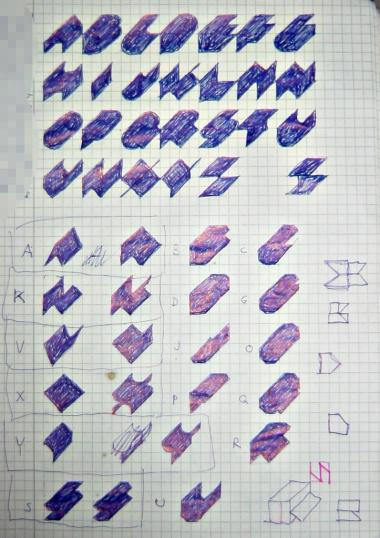
Frucktur
The subtle suggestion of a third dimension makes this FontStruction surprisingly readable. And that using a 4×4 grid only... Magic!
very nice! You kinda invented new symbols for letters inspried by... letters^^
Thank you! Yes, I first just played around with a 3D-effect on "normal" letters and finally it became these abstract silhouettes.
Here's an early sketch to make it clear:
Fantastic. The third dimension, the small grid, the preliminary sketches, the resulting silhouettes - all wonderful.
i dont believe it! it looks so hard to read, but when you use it, it is just as legible as times new roman! that is amazing!!!!!
That's raly nice!, mayby some letters is not so leggible but in the complex it's a great job
Thanks uberstriken & K PROJECTS! The letters themselves are not very well readable, but they are in context, like words. It works quite well for "normal" words (not too short or long, well known). I made a graphik about it.
Brilliant and beautiful!